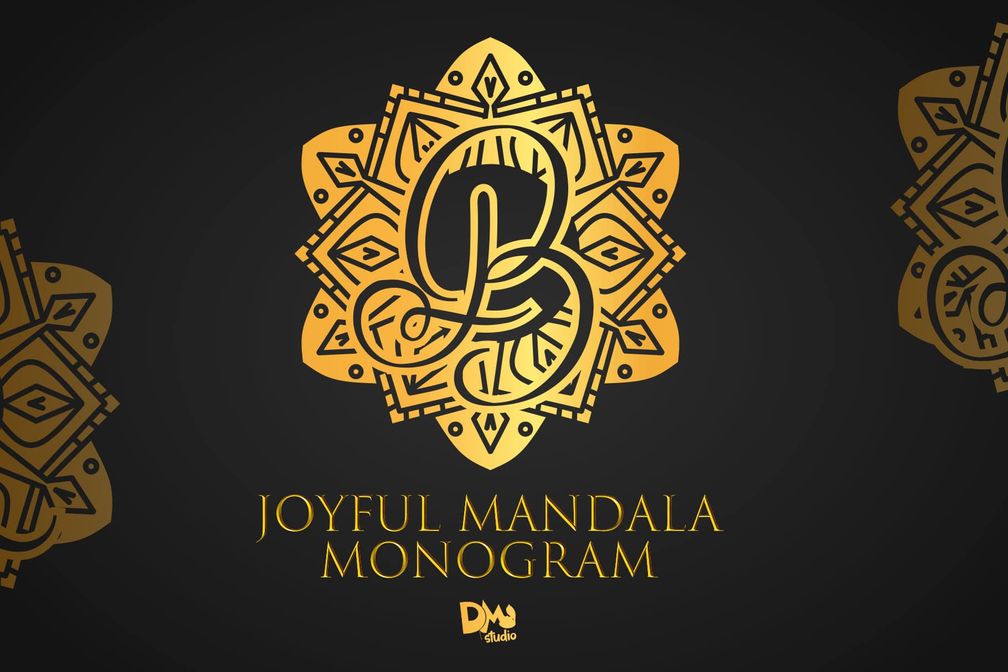
Joyful Mandala Monogram
Joyful Mandala Monogram – Radiant & Whimsical Monogram Font
Joyful Mandala Monogram is a delightfully cheerful font that blends hand-drawn mandala artistry with uplifting charm. Designed to infuse your designs with warmth and positivity, this font is perfect for festive stationery, personalized gifts, kids’ party materials, inspirational quotes, and joyful branding. Each letter is adorned with intricate mandala detailing that captures a spirit of happiness and celebration.
• Whimsical Mandala Embellishments: Intricate patterns radiate from each letter, bringing a playful and artistic vibe.
• Ideal for Lighthearted Projects: Perfect for children’s designs, seasonal cards, motivational crafts, and personalized keepsakes.
• Elegant Yet Cheerful Design: Balances ornate detail with a friendly tone, suitable for casual and creative uses.
• Complete Character Set: Includes uppercase, lowercase, numerals, punctuation, and multilingual support.